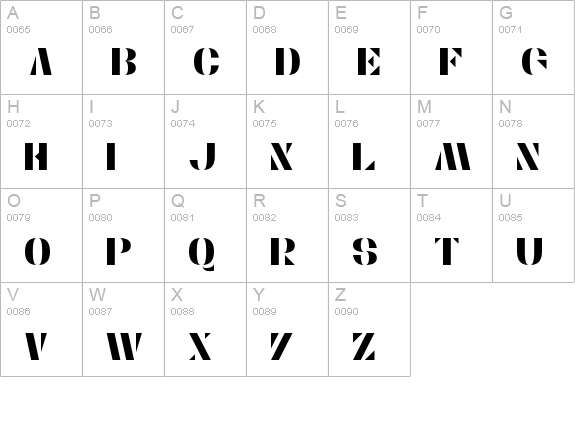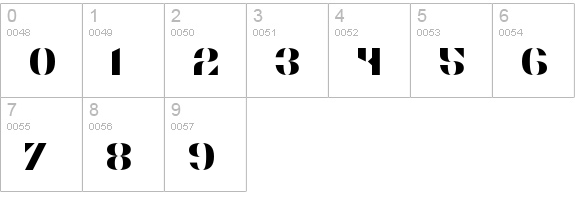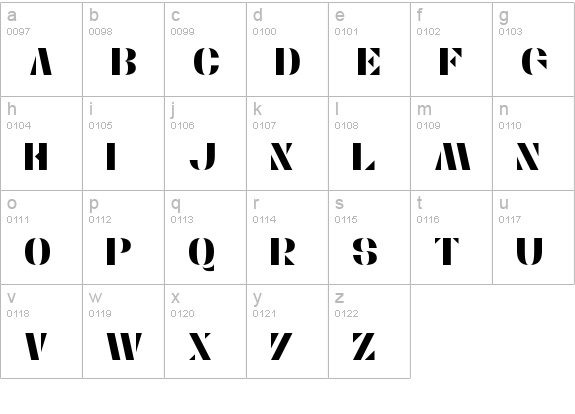
Introducing Stencylette, a stunning font that combines elegance with a touch of edginess. Perfect for any design project that requires a unique and eye-catching typeface, Stencylette is sure to make a lasting impression. With its clean lines and bold strokes, this font is versatile and can be used for a variety of purposes. Whether you're creating a logo, designing a poster, or even crafting a website, Stencylette will add a touch of sophistication and professionalism to your work. But what sets Stencylette apart from other fonts? It's the fact that it's free! That's right, this incredible font is freely available to download at FontsMarket.com. You can enhance your designs without breaking the bank, making it perfect for both personal and commercial projects. Not only is Stencylette visually appealing, but it's also incredibly easy to use. With its clear and well-defined characters, you'll have no trouble creating stunning typography. The font's versatility allows it to be used in various sizes and styles, ensuring that your designs will always stand out. Imagine the possibilities with Stencylette. From sleek modern designs to vintage-inspired creations, this font can do it all. Its timeless appeal makes it suitable for any design aesthetic, whether you're going for a contemporary look or a more classic feel. So why wait? Download Stencylette today and unlock a world of design possibilities. With its free availability on FontsMarket.com, you'll have access to a font that will elevate your designs to the next level. Don't miss out on this incredible opportunity to enhance your creativity and make a lasting impression with Stencylette.